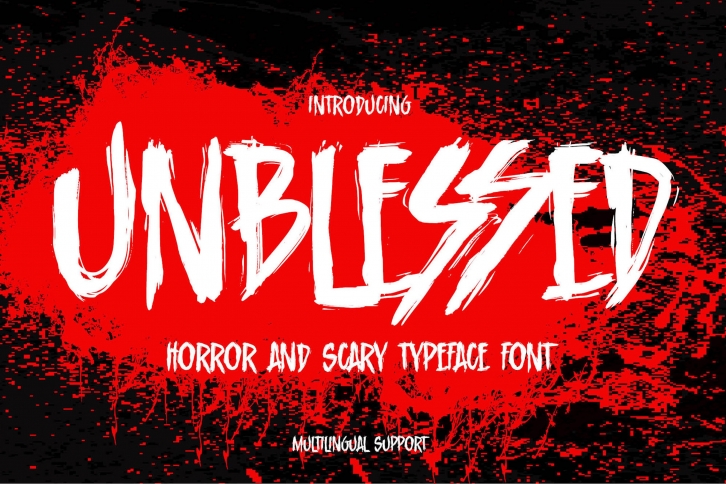
Unblessed -Horror And Scary Typeface FONT Download
Unblessed is Horror And Scary Typeface Font with ligature and Multilanguage support dramatic movement.
Best for halloween poster, horror poster, childrenbook, cartoon,comic.This font is great for your next creative project such as logos, printed quotes, invitations, cards, product packaging, headers, Logotype, Letterhead, Poster, Label, and etc.